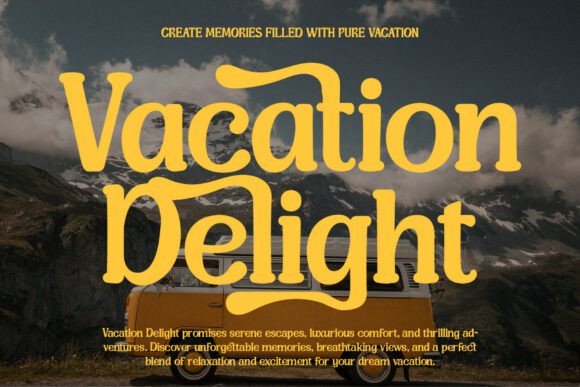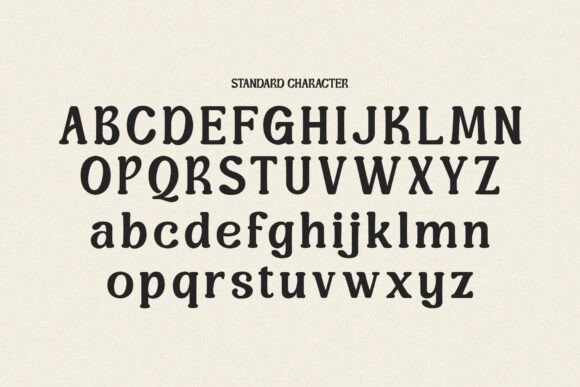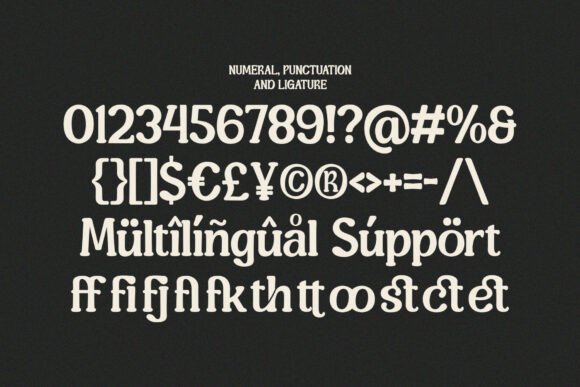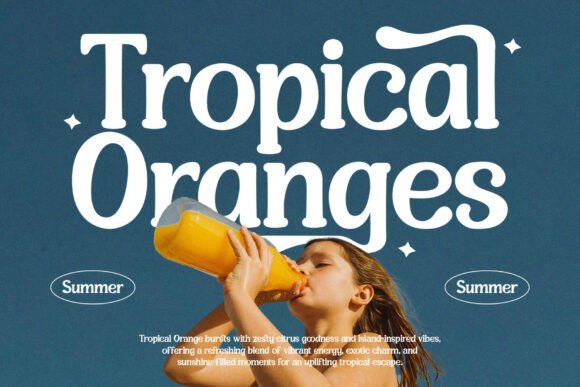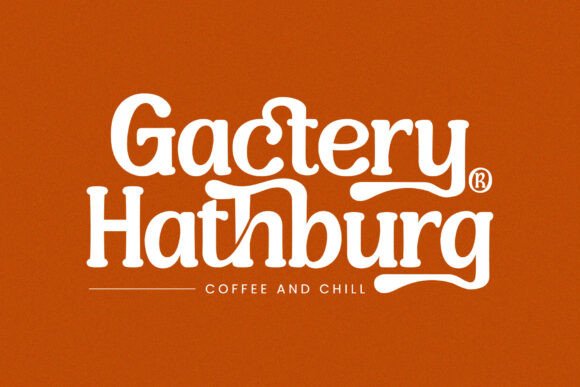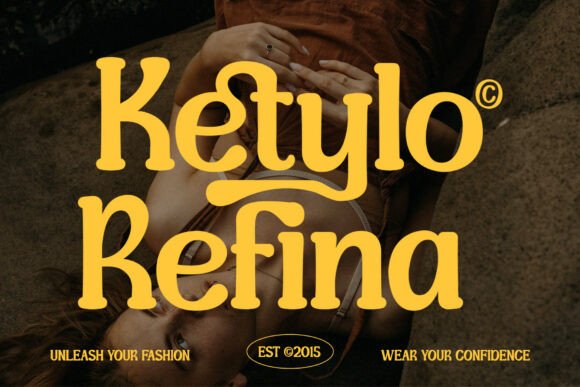
Introduction to Roundyslaby Regular Font
Roundy Slaby is a bold and stylish rounded slab serif font that blends classic strength with a modern twist.
Its sturdy letterforms are softened by rounded terminals, creating a warm yet confident presence thatโ€™s perfect for brands seeking both charm and impact The gentle curves and thick serifs give it a vintage feel, while the added swashes, ligatures, and alternates introduce a playful, contemporary edge.
Key Features of Roundyslaby Regular Font